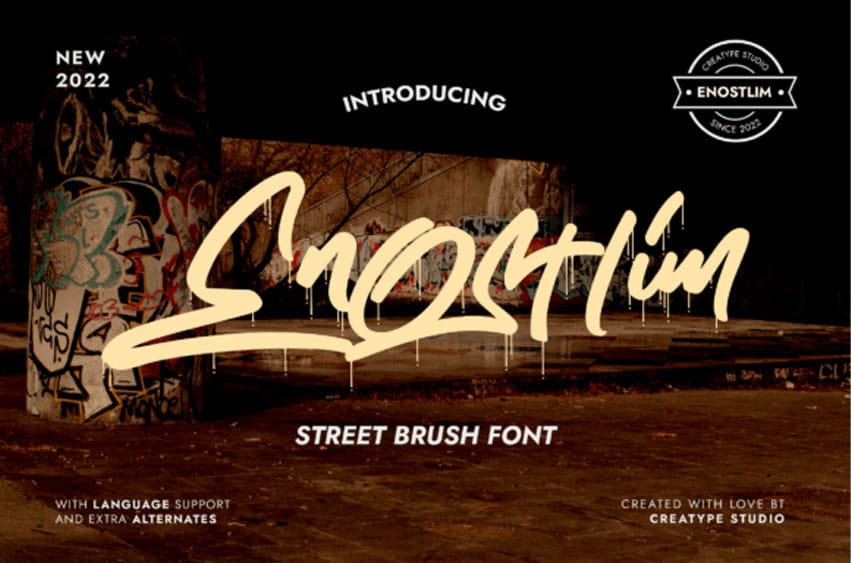
Enostlim Font is a street brush font with a fun and carefree vibe while the paint drip marks add a realistic look.
Enostlim is perfect for branding projects, logos, social media posts, advertisements, product packaging, and any projects that need a fun, urban accent. This font is PUA encoded which means you can access all the glyphs and ligatures with ease!